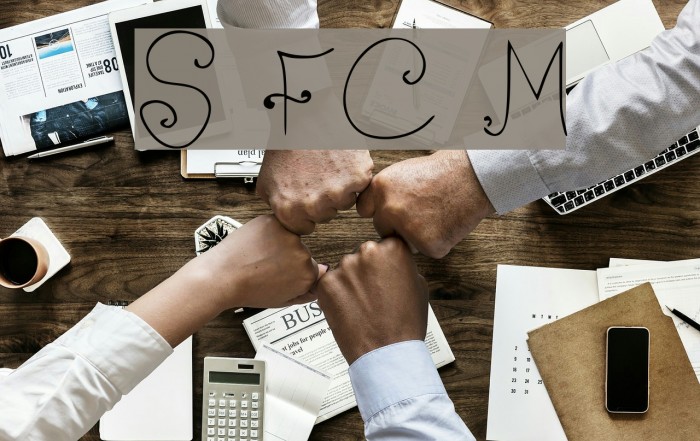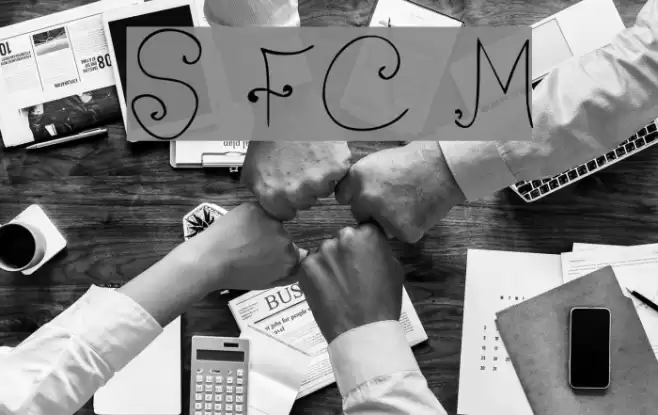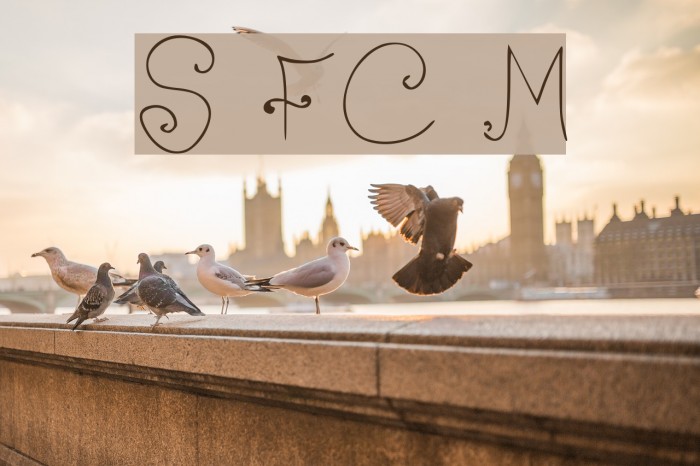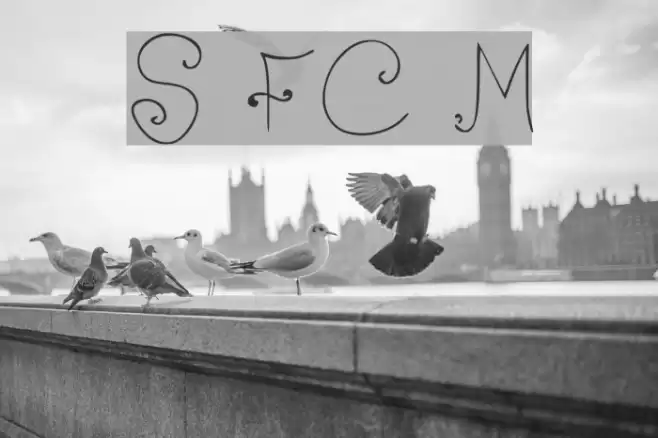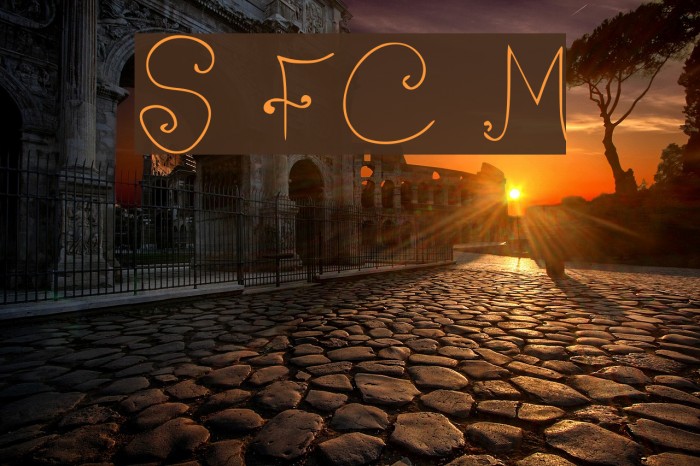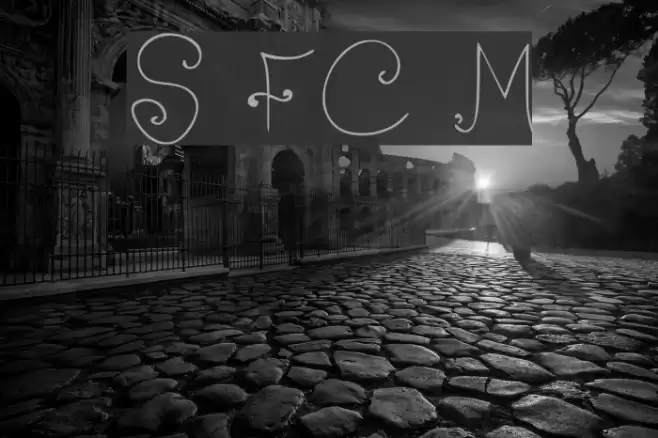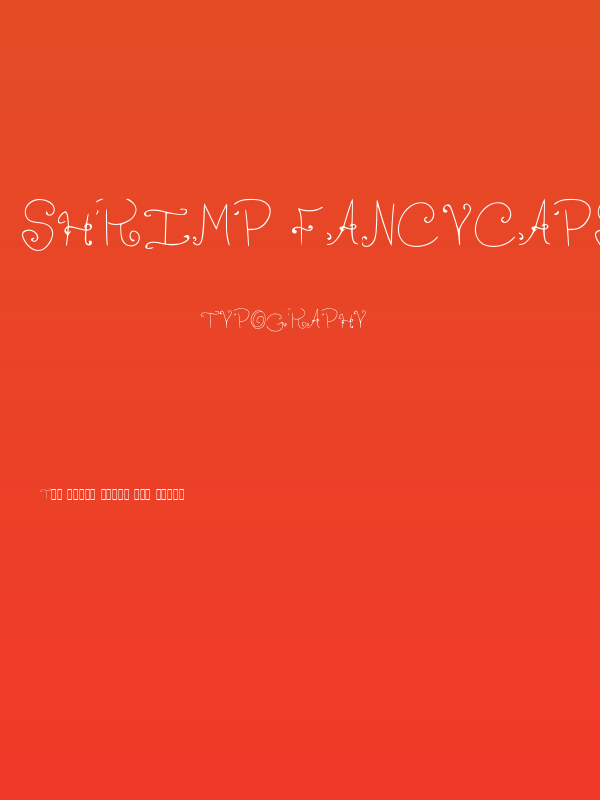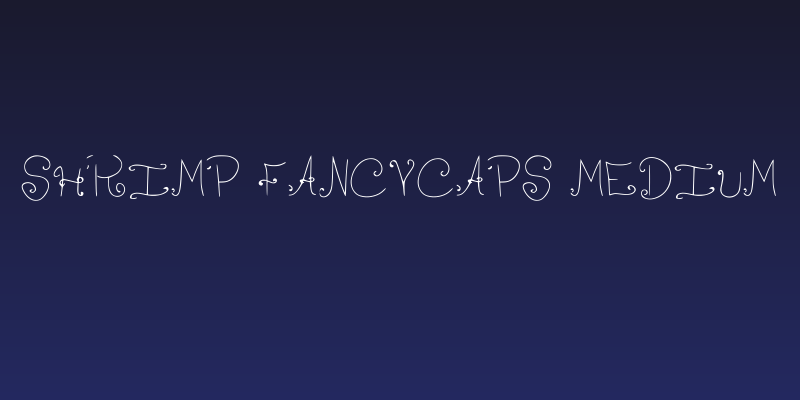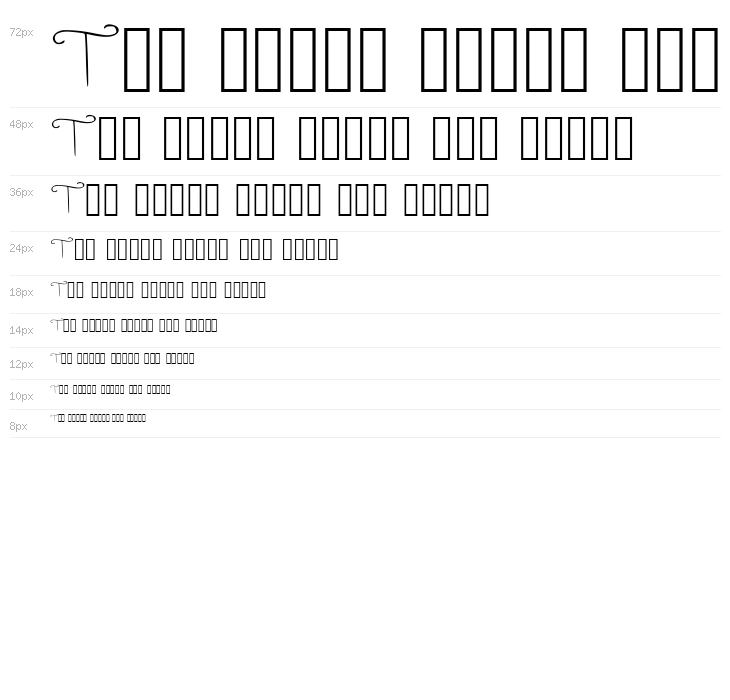
Shrimp FancyCaps Medium Font
Shrimp FancyCaps Medium Description
This font features an ornate and decorative style with elaborate swirls and curls integrated into the letterforms. Each capital letter is uniquely designed, incorporating whimsical elements that give it a playful and artistic flair. The strokes are thin and delicate, adding to the elegance of the font. The overall appearance is reminiscent of calligraphy, with a modern twist that makes it suitable for creative and expressive projects. The font's intricate details make it stand out, perfect for capturing attention in design work.